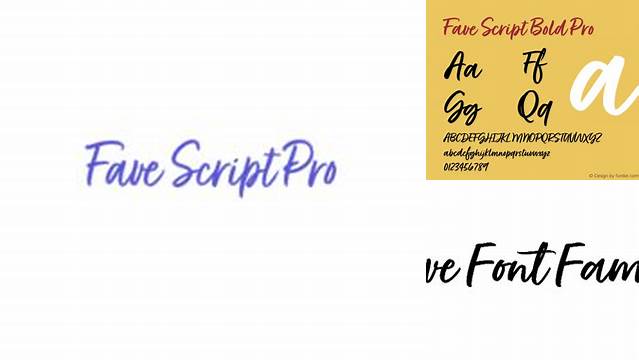
Fave Script Pro Font Free Download: Your Guide to Stylish Typography
Hey guys! Are you on the hunt for a font that screams elegance, sophistication, and a touch of modern flair? Look no further! Fave Script Pro is here to answer all your font prayers. In this article, we'll dive deep into the world of Fave Script Pro, exploring why it's a must-have for designers, marketers, and anyone who appreciates beautiful typography. We'll cover everything from its unique characteristics and design inspiration to where you can snag a Fave Script Pro font free download. So, buckle up, because you're about to become a font aficionado!
What Makes Fave Script Pro Font Special?
Fave Script Pro isn't just another font; it's a statement. It's a carefully crafted typeface designed to make your text pop. Think of it as the little black dress of the font world β versatile, stylish, and always in vogue. This font is a premium calligraphy script with a modern aesthetic, making it suitable for a wide variety of design projects. It's the kind of font that can instantly elevate your design from good to great. The design is characterized by flowing strokes, elegant curves, and a natural handwritten feel, the font is designed to mimic the fluidity of real handwriting. That's what sets it apart from many of its competitors. Each letter is designed to connect seamlessly with the next, creating a harmonious and visually appealing flow. The font also offers a wide range of characters, including standard characters, numbers, punctuation, and several special characters. This ensures that you have the flexibility to use it in almost any design project. Its versatility allows it to shine in various applications, from creating eye-catching headlines to designing beautiful invitations and logos. This font boasts a high level of readability, even in larger blocks of text. While it's primarily a display font, it manages to maintain clarity, making it a practical choice for various design needs. This font is more than just a typeface; it's a tool that lets you create designs that tell a story. Imagine using it to design wedding invitations. The font instantly conveys an atmosphere of elegance and romance. Or consider using it for a brand logo. The script's fluid design can reflect the brand's creativity and sophistication. Ultimately, Fave Script Pro empowers you to convey your message beautifully. It's a font that can help transform your ideas into stunning visual realities. You will be able to discover its true potential. Let's not forget about the emotional impact. Fonts like Fave Script Pro can stir up feelings within the audience. The delicate strokes can evoke feelings of luxury and elegance. It's a font that's designed to create a strong visual impression. It's a tool that allows designers to add personality and flair to their work. It provides a way to express your brand's unique identity. From its elegant design to its wide-ranging versatility, this font offers everything you could want. The handwriting design adds a personal touch, giving the design a human element. Its distinctive style is sure to catch the eye of your audience. This is an investment in quality and aesthetics. It's a way to bring your designs to the next level, whether you're a seasoned professional or a budding creative. This font is a testament to the power of good typography. It can transform the mundane into the extraordinary.
Fave Script Pro Font Features
Let's get down to the nitty-gritty, shall we? What exactly makes Fave Script Pro tick? Well, this font comes packed with features that make it a designer's dream come true. The font is equipped with a wide array of ligatures, which are special characters that combine two or more letters to create a unique visual effect. These ligatures add a touch of elegance and sophistication to the overall design, especially in headlines and titles. You will discover its versatility. The font supports multiple languages. This is a great feature for designers working on international projects. This wide-ranging character support ensures that your message can be conveyed globally. Another essential feature is the availability of stylistic sets. These sets allow you to modify the appearance of certain characters to match your design. This provides you with an enormous degree of control over your designs. Each of these features gives you the tools you need to create designs that stand out from the crowd. When you're looking for an elegant font, the Fave Script Pro font is the right choice. The presence of these features sets this font apart. The designers incorporated a variety of tools to ensure that the font is both visually appealing and practical. In addition to ligatures and stylistic sets, Fave Script Pro often includes alternate glyphs, which provide several variations of each letter. This feature increases the design possibilities by allowing you to mix and match different letter styles. The extensive support for languages is a significant advantage for global design projects. You will discover that Fave Script Pro is the right font for you. The flexibility it offers is an advantage for both experienced and novice designers. The wide-ranging features allow users to customize the font to fit their unique needs. Fave Script Pro offers a wide range of possibilities. You're in for a treat! The different features that make the font so special and versatile. The inclusion of all these features provides an enjoyable and adaptable experience for all designers. It offers a level of control and creative freedom that's hard to match. The features allow designers to create personalized and visually exciting work. The result is a font that's not only attractive but also incredibly adaptable. Fave Script Pro is a fantastic tool for anyone seeking to elevate their design projects. It provides many opportunities. Itβs a font that empowers creators. The features are crafted with both beauty and usability in mind.
Using Fave Script Pro Font in Your Designs
So, you've got your Fave Script Pro font free download (or you've invested in the full version β smart move!). Now, what can you do with it? The possibilities are endless, my friends! Fave Script Pro shines in a variety of applications. For wedding invitations, the font's delicate curves and elegant strokes are the perfect choice to add an air of romance and sophistication. This font is perfect for creating a beautiful and unforgettable invitation. In branding, you can use it to design logos, creating a sense of luxury and class that will set your brand apart from the competition. For this reason, you should consider this font to create a unique brand. It works great for creating social media graphics and marketing materials. You can use it to create eye-catching headlines, quotes, and captions that immediately grab the viewer's attention. The versatility of the font allows you to explore a wide range of design possibilities. It's a perfect option for greeting cards, posters, and other creative projects. The font allows you to produce personalized and unique designs. It also works well with other typefaces. You should try pairing it with sans-serif fonts. You can create a harmonious look that brings balance to your design. The versatility of this font is its strength. It's a tool that lets you express your creativity. When integrating Fave Script Pro into your projects, always keep readability in mind. This font is best used for display purposes, headlines, and short phrases rather than long blocks of text. Using it sparingly will make your designs more visually appealing. Always consider your audience. Before using this font in your designs, consider what message you want to convey. If you are trying to create a sense of luxury and elegance, the font is a perfect choice. Play around with different sizes, colors, and arrangements. You will discover a variety of amazing designs. Its elegant design can add a sense of sophistication to the design.
Tips for Using Fave Script Pro Effectively
Let's talk about how to get the most out of your Fave Script Pro font. Proper typography can make or break a design, so listen up! Always remember the goal of your design. Keep your audience in mind when using this font. The aim is to select the right font for your project. Consider the overall tone and feel of your design when selecting this font. Think about the audience and the message you want to convey. Try using the font in a way that will make your design appealing to a broad audience. Try experimenting with different font sizes. Play with the font's size to match your design requirements. Use it for headlines or titles to add a touch of elegance. Try different colors to improve the font's aesthetics. When used in moderation, the font can add a touch of sophistication to your design. This is perfect for creating visual harmony and balance in your work. Explore different color combinations to make your design stand out. Try to create a visual hierarchy in your design. To make your text more readable, use different weights. Make sure that the font works well with the other elements of your design. Make sure that the design is visually appealing. Make sure the design is aligned with your brand's message. The font is versatile and flexible. Try different techniques to see what works best. Proper typography will allow you to make your designs shine. Ensure that you have a strong understanding of the basic principles of typography. When using Fave Script Pro, it's best to keep the text short and concise. Overusing the font can be distracting and may diminish its elegance. By being mindful of these tips, you'll be able to harness the full potential of this fantastic font. Get ready to take your designs to the next level. You will find that Fave Script Pro can bring a unique style. Your projects will reflect your brand identity. The versatility of the font will help you create unique designs.
Conclusion: Embrace the Elegance of Fave Script Pro
So, there you have it! A deep dive into the stunning world of Fave Script Pro. This font is more than just a typeface; it's a tool that empowers you to create beautiful and impactful designs. From its flowing script to its versatile applications, Fave Script Pro is a must-have for any designer's toolkit. Whether you're creating wedding invitations, designing a brand logo, or simply adding a touch of elegance to your social media posts, this font is your secret weapon. We hope this guide has inspired you to explore the possibilities of Fave Script Pro. Go forth, create, and let your creativity shine! If you have any questions, feel free to reach out. Happy designing, everyone!